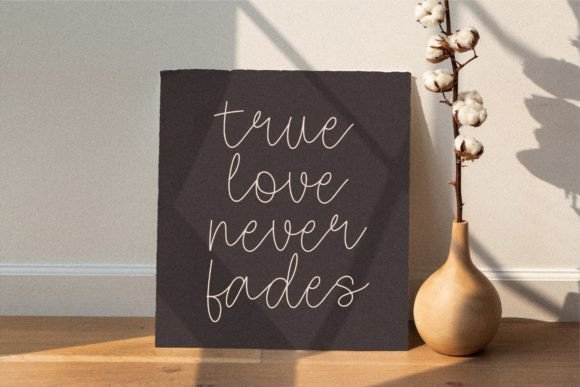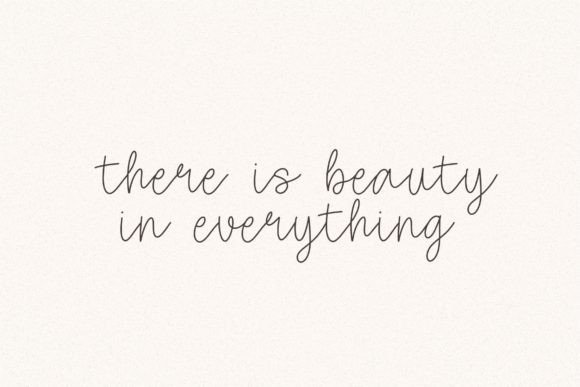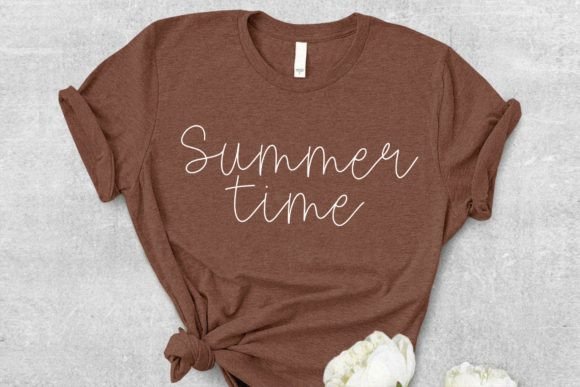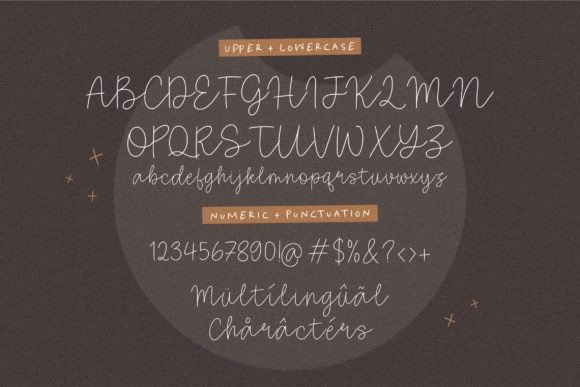
The Ultimate Guide to Black Almond Font: Elevate Your Design with Elegance
I’ll never forget the time I was working on a branding project for a luxury skincare client. I had nailed the color palette, logo concept, and overall aesthetic, but something was missing – the perfect font. I scoured the internet, tried countless combinations, and even considered custom typography. That’s when I stumbled upon Black Almond, a monoline script that effortlessly elevated my design to new heights. In this article, I’ll share my love for this stunning font, its features, and how to make the most of it in your design projects.
An Honest Review of Black Almond Font
What I Love About Black Almond ✨
- ✅ Smooth, effortless lines that exude elegance and sophistication
- ✅ Understated yet modern appeal that works for a wide range of design projects
- ✅ Incredibly versatile and adaptable to different styles and themes
- ✅ Crafted with precision and care for a seamless design experience
While Black Almond is an exceptional font, it’s not without its limitations. Here are a few things to keep in mind:
- ⚠️ Limited use in body text due to its elegant, cursive nature
- ⚠️ May not work well in very small sizes or low-resolution applications
The Backstory Behind Black Almond Font
Black Almond was designed with the modern designer in mind. Its creator aimed to craft a font that was both elegant and versatile, perfect for a range of design projects. With its smooth lines and understated sophistication, Black Almond has become a go-to font for designers seeking a timeless, modern look.
Q: What type of projects is Black Almond best suited for?
A: Black Almond is perfect for logos, branding, invitations, packaging, and more. Its versatility makes it suitable for a wide range of design projects.
Q: Can I use Black Almond for body text?
A: While Black Almond is elegant and beautiful, it’s best suited for headlines, titles, and short paragraphs. For longer body text, consider a more traditional serif or sans-serif font.